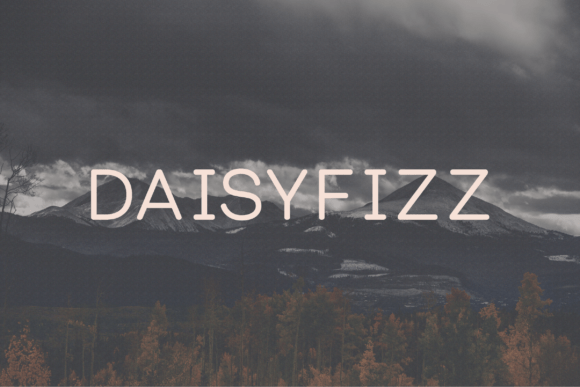
Daisyfizz Font: Elevate Your Design with a Modern, Classy Sans Serif Typeface
In the realm of typography, a font can make all the difference in the aesthetic and effectiveness of a design. For those seeking a modern, classy sans serif typeface that exudes versatility and elegance, look no further than Daisyfizz. This exceptional font is designed to cater to a wide array of design needs, from logos and wedding invitations to advertisements and magazine layouts. In this article, we’ll delve into the features, applications, and benefits of using Daisyfizz in your design projects.
Introducing Daisyfizz: A Modern, Classy Sans Serif Typeface
Daisyfizz is a thoughtfully crafted sans serif typeface that embodies modernity and class. Its clean lines, balanced proportions, and subtle nuances make it an ideal choice for designers aiming to convey a sense of sophistication and professionalism. The font includes a comprehensive set of upper characters, numbers 0-9, and a range of punctuation and symbols, ensuring that you have all the tools necessary to create visually appealing and coherent designs.
Key Features of Daisyfizz
- Upper Characters: Daisyfizz offers a full set of upper characters, allowing for creative freedom in crafting titles, headings, and text.
- Numbers 0-9: The font includes digits 0 through 9, making it suitable for designs that require numerical information, such as pricing, dates, or statistics.
- Punctuation and Symbols: A variety of punctuation marks and symbols are available, enabling you to add depth and clarity to your designs.
- Sans Serif Design: The clean, sans serif design of Daisyfizz lends a modern and streamlined look to any design project.
Versatility of Daisyfizz
One of the standout qualities of Daisyfizz is its versatility. This font is not limited to a specific design genre or application; rather, it can be seamlessly integrated into a multitude of projects. Here are some examples of how you can use Daisyfizz:
- Logos: Create memorable and impactful logos that stand out with Daisyfizz’s unique character.
- Weddings and Invitations: Add an elegant touch to wedding invitations, save-the-date cards, and other event-related materials.
- Quotes and Typography: Use Daisyfizz to highlight quotes, testimonials, or key messages in your designs.
- Advertisements: Elevate your advertising materials with a font that captures attention and communicates your message effectively.
- Print and Magazines: Enhance the readability and aesthetic of your print materials, such as brochures, flyers, and magazine articles.
Benefits of Using Daisyfizz
Choosing Daisyfizz for your design projects comes with several benefits:
- Modern Aesthetic: Instantly update your designs with a contemporary look that appeals to modern audiences.
- High Readability: The clear and legible design of Daisyfizz ensures that your message is conveyed effectively, regardless of the application.
- Professionalism: Impress your audience with a font that exudes professionalism and attention to detail.
- Time-Saving: With its comprehensive character set, you can complete your designs more efficiently, without the need for multiple fonts.
- Enjoy: Experience the transformation that Daisyfizz brings to your designs.
Daisyfizz is more than just a font; it’s a design solution that can elevate your projects to new heights of sophistication and impact. Its modern, classy sans serif design, combined with its versatility and comprehensive character set, makes it an indispensable tool for designers across various industries. Whether you’re creating logos, wedding invitations, advertisements, or magazine layouts, Daisyfizz is poised to become your go-to typeface for delivering stunning designs that captivate and engage.
Embrace the power of typography with Daisyfizz and discover a world of limitless design possibilities.